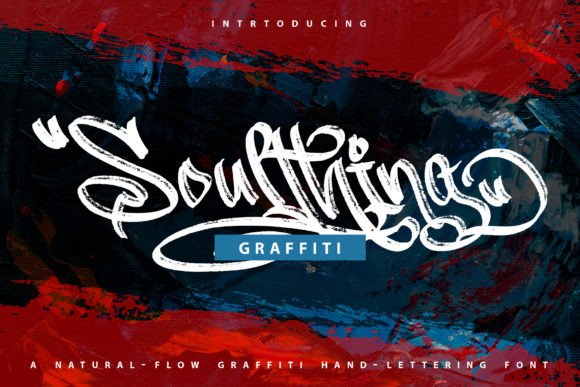
Journey into the realm of captivating calligraphy with Soulthing, a groundbreaking display font that will ignite your creative spirit and leave a lasting impression on your audience. Soulthing is not just a font; it's an artistic expression that dances across your designs, evoking a sense of elegance and sophistication.
Soulthing's meticulously crafted characters exude a raw, graffiti-like energy, reminiscent of the vibrant street art that adorns urban landscapes. Each letter is a testament to the artistry of its creator, Vunira, who has poured their heart and soul into this masterpiece. The result is a font that speaks volumes, commanding attention and leaving an indelible mark on the minds of those who behold it.
Unleash the power of Soulthing to transform your invitations, greeting cards, branding materials, business cards, quotes, posters, and more into captivating works of art. Let Soulthing's graceful strokes add a touch of exclusivity to your wedding invitations, making them a cherished keepsake for years to come. Elevate your branding materials with Soulthing's bold and distinctive style, ensuring that your business stands out from the crowd. Create business cards that leave a lasting impression, showcasing your professionalism and creativity.
With Soulthing, you have the perfect tool to express yourself in a truly unique and personal way. Its versatility knows no bounds, allowing you to experiment and explore countless creative possibilities. Whether you're a seasoned designer or just starting your creative journey, Soulthing will ignite your imagination and empower you to create designs that resonate with your audience.
Don't settle for ordinary fonts that blend into the background. Embrace the extraordinary with Soulthing and let your designs shine. Experience the joy of creating with a font that truly captures the essence of your artistic vision. Soulthing is more than just a font; it's a gateway to a world of creative possibilities, waiting to be unlocked by your imagination.